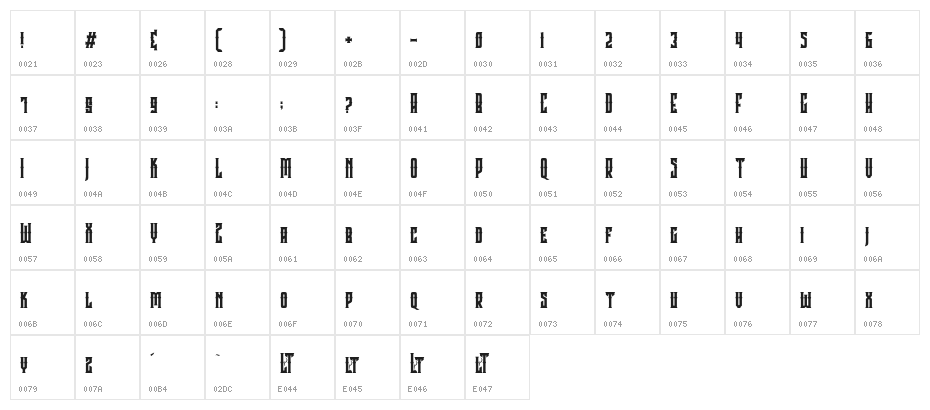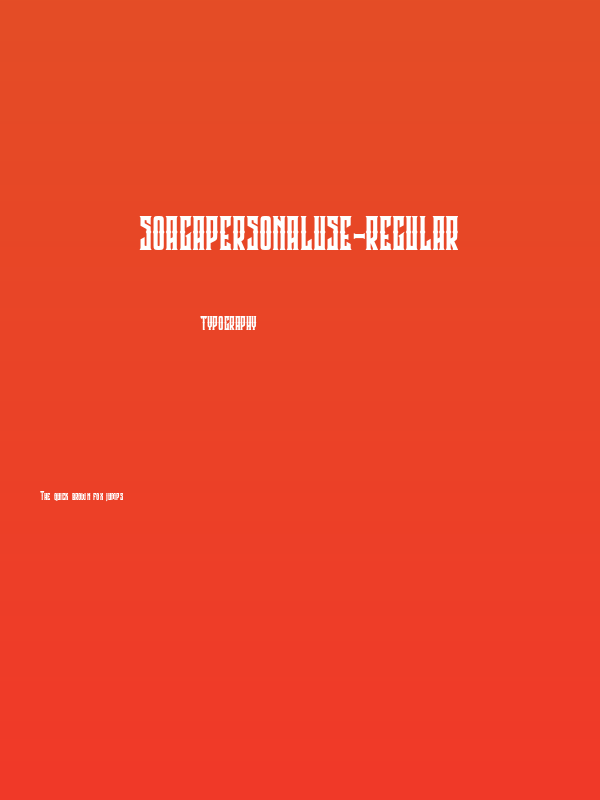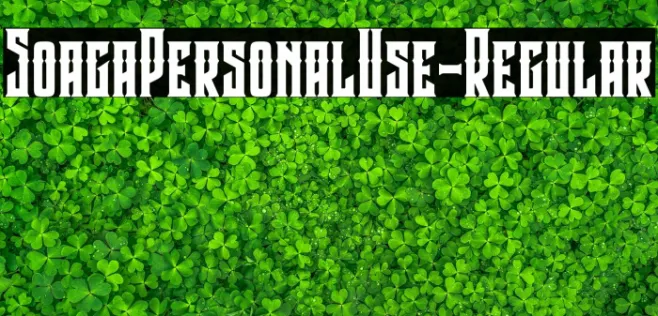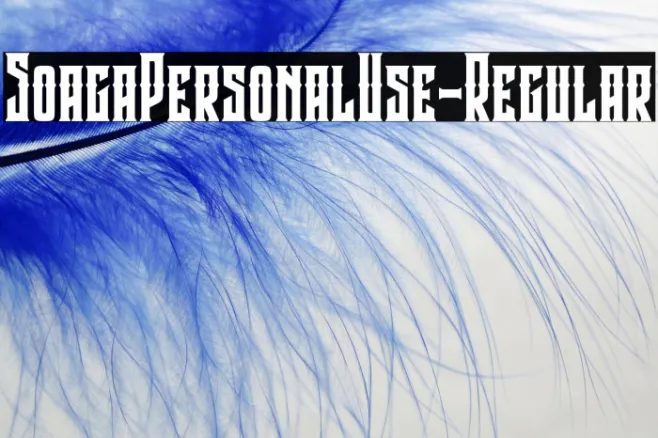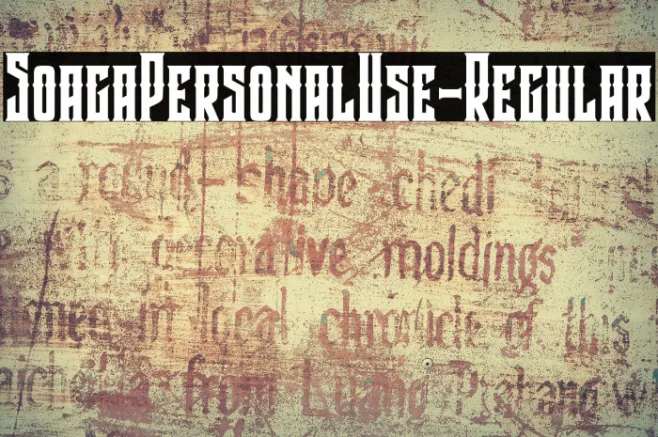
SoagaPersonalUse-Regular Font
SoagaPersonalUse-Regular Description
This font features a bold, angular design with a strong presence, reminiscent of Gothic or medieval styles. The characters are tall and narrow, with sharp edges and a distinctive geometric structure. The uppercase letters are particularly striking, with a uniform height and consistent stroke width. The lowercase letters maintain the same angular aesthetic, providing a cohesive look across the font. Numbers and special characters are designed to match the overall style, ensuring versatility in various applications. The font's unique appearance makes it suitable for projects that require a dramatic and impactful visual statement.
| Proposed Projects | Ideal for posters, album covers, video game titles, and branding that requires a bold, dramatic look. |